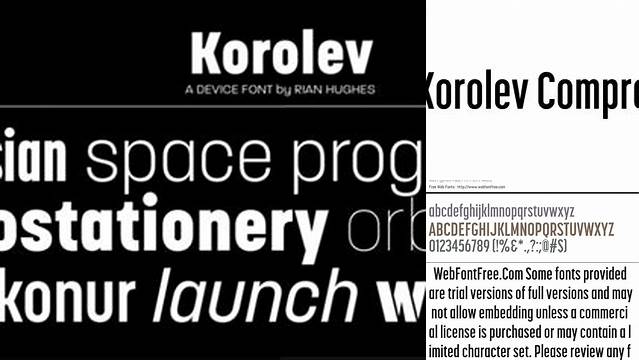
Hey guys! Ever stumbled upon a font that just screams attention? Well, let me introduce you to the Korolev Font, a real powerhouse when it comes to making a statement. This article is all about the Korolev Font, specifically the compressed and bold variations, and the best part? You can get it for free! So, buckle up, because we're diving deep into what makes this font so awesome, how to snag a free download, and how you can use it to spice up your projects. Whether you're a designer, a blogger, or just someone who loves a good-looking font, this is the place to be. We'll explore its features, talk about its versatility, and give you some pro tips on how to make the most of it. Let's get started!
1. What Makes the Korolev Font So Special?
Alright, let's get down to the nitty-gritty. What exactly makes the Korolev Font stand out from the crowd? Well, it's a combination of things. First off, it's got a fantastic, modern vibe. It's clean, geometric, and packs a serious punch. The compressed style, in particular, is designed to grab your eye without being overly complicated. It’s perfect for headlines, titles, and anywhere you want to make a bold statement. The bold weight of the font further amplifies this effect, making sure your text is seen and remembered. It's not just about aesthetics, though. The Korolev Font is also designed for readability. Despite its compressed nature, each character is carefully crafted to be clear and distinct. This means it works well even at smaller sizes, a crucial factor in design. It’s a font that balances style and function, which is a rare feat. Another key characteristic is its versatility. You can use it across a wide range of projects, from website headers and posters to logos and social media graphics. The Korolev Font truly adapts to whatever you throw at it. It’s like a chameleon in the font world, effortlessly changing to fit the needs of your project. And let’s not forget the emotional impact. The Korolev Font, particularly the bold version, exudes confidence and strength. It's the kind of font that makes you feel like you're in control, making it perfect for brands that want to convey a sense of authority or professionalism. Plus, the fact that you can get it for free makes it an even sweeter deal! So, yeah, the Korolev Font is pretty special, alright. It’s a combination of great design, functionality, and accessibility, making it a must-have for any creative toolbox. And honestly, who doesn’t love a font that makes your work look effortlessly cool?
2. Diving Deep into the Compressed Style of Korolev
Now, let's zoom in on the compressed style of the Korolev Font. This is where the magic really happens, guys. The compressed version is all about maximizing impact in a limited space. Think of it like this: You want to shout your message from the rooftops, but you don't have all the space in the world. The compressed Korolev Font is the megaphone that gets your message across loud and clear, without taking up too much real estate. This style is characterized by its tight letter spacing and condensed forms. Each character is squeezed together, creating a visual density that immediately draws the eye. It's a fantastic choice for headlines, subheadings, and any text element where you want to make a statement without being overly long or verbose. What's even more impressive is how well it maintains readability, even with the letters so close together. The designers of the Korolev Font put a lot of thought into ensuring that each character remains distinct, so your audience can easily understand your message, despite the condensed format. The compressed style also brings a touch of modernity and sophistication. It gives your design a sleek, contemporary look that is perfect for projects that want to project a stylish, up-to-date image. It's a great choice for brands that aim to be seen as cutting-edge or forward-thinking. It's an excellent solution for anyone who needs to fit a lot of information in a small space without compromising the look and feel of their design. This can be super useful for things like website navigation, posters, or even product packaging where space is always at a premium. The compressed style of Korolev Font isn’t just about aesthetics; it's about efficiency and impact, giving you a powerful tool to make your designs pop.
2.1. The Aesthetics of Compressed Typography
When we talk about the aesthetics of compressed typography, we’re really diving into the visual appeal of tightly spaced letters and the impact it has on the overall design. Compressed typography is not just about squeezing letters together; it's an art form. It's about how the reduced space between characters creates a sense of dynamism, tension, and visual interest. The Korolev Font masters this perfectly, as the compressed style of the Korolev Font has its own unique aesthetic qualities. It gives your design a powerful, assertive look that can immediately capture attention. The compressed form of letters often creates a stronger visual rhythm. This rhythm guides the eye across the text, making the content engaging and memorable. It creates a sense of flow that can make your design feel more alive and dynamic. Think of a tight, compressed font as an amplifier for your message. The characters are closer together, forcing the viewer to focus and engage more intently with the words. This can be very useful when you want to make a strong impact or convey a sense of urgency. Compressed typography can also create a sense of sophistication and modernity. It’s a style often associated with contemporary design, which is what the Korolev Font does best. The condensed letterforms have a clean, streamlined feel that makes your design look fresh and up-to-date. In essence, the compressed aesthetic is about creating a sense of visual density and impact, offering designers a powerful tool to make their work more expressive and engaging. The Korolev Font uses all of these aesthetics to create something truly impactful, grabbing your attention and keeping it.
2.2. Best Uses for Compressed Font Styles
Alright, let’s talk about where compressed font styles, like the Korolev Font, really shine, because it isn’t just about looking cool; it's about being effective. The best uses for a compressed font style really depend on the project's goals. Firstly, they’re perfect for headlines. A compressed font makes a big statement and grabs immediate attention, which is exactly what a headline needs to do. The Korolev Font, with its bold and compressed nature, is a great choice for this. Then, they’re ideal for subheadings and titles. They provide a clear visual hierarchy, separating different sections of text. It's fantastic for breaking up long content, making it easier to digest. They also work really well for short phrases and taglines. Because they're condensed, they can pack a lot of impact into a small space. Think about a tagline for a logo or a catchy phrase on a poster, the Korolev Font can deliver a strong message. Compressed fonts are also excellent for display purposes, like posters, banners, and social media graphics. The condensed characters ensure that the text is easily readable from a distance and is instantly recognizable. In situations where space is limited, compressed fonts, like the Korolev Font, are a lifesaver. Website navigation menus, product labels, and even small print in advertisements can benefit from a compressed font. Lastly, they are a great option for branding. Brands that want to project a modern and streamlined image often turn to compressed fonts to create a strong visual identity. In short, compressed font styles are versatile tools that excel in contexts where space is limited, impact is essential, and a modern aesthetic is desired.
2.3. Readability and Legibility in Compressed Fonts
Here’s the deal, guys: readability and legibility are super important, even with cool fonts like the Korolev Font. Even though compressed fonts look great, if people can't easily read them, they're useless. So, what makes a compressed font readable? The designers of the Korolev Font have considered this very carefully. First, character design is key. The individual letters need to be distinct and easily recognizable, even when squeezed together. That means a good compressed font must have well-defined letterforms with unique shapes. Then, sufficient counter space is really important. Even with compression, there must be enough open space within the letters themselves. This helps your eyes differentiate between characters. Then there’s the weight of the font. A bold weight, which the Korolev Font offers, can actually improve readability in a compressed style because it makes the characters more prominent. Font size also plays a big role. It’s best to use compressed fonts at larger sizes, especially if the font is displayed on a screen. With larger text, the characters have more room to breathe. Spacing between the letters and words is very important, as a slight adjustment can make a world of difference. The right amount of space keeps the text from looking cramped and difficult to read. In short, a readable compressed font, like Korolev Font, blends aesthetics with functionality. It’s designed to be visually appealing without compromising the ability of readers to understand the text. It's a fine balance, but when done right, a compressed font can be a powerful tool.
3. The Boldness of Korolev: Making a Visual Statement
Let’s dive into the bold side of the Korolev Font. If the compressed style is the megaphone, then the bold weight is the volume knob turned all the way up. The bold style is perfect for grabbing attention and making a strong visual statement. It’s all about creating impact, and there's no question that it's going to make a statement. The boldness in the Korolev Font is achieved through the thickness of the strokes that make up each letter. This thickness gives the font a heavier, more substantial feel. This makes it ideal for titles, headlines, and any other text elements that need to stand out. Its boldness also translates to authority and confidence. When used in branding, the bold Korolev Font can convey a sense of strength and reliability. It’s like the font equivalent of a power suit! Another great thing about the bold style is its visual clarity. Even at a distance or in smaller sizes, the bold characters are easy to read. This is crucial for things like signage, posters, and any design where the text needs to be quickly understood. It’s great when you want to ensure your message is clear. It's also incredibly versatile. While it's great for headlines, it can be used for various purposes. From website headers and social media graphics to printed materials, the bold Korolev Font can adapt to any project that requires a high degree of visual impact. Plus, the combination of bold and compressed is a double whammy of attention-grabbing power. This combination creates a visually striking contrast and is super effective at making sure your message pops. So, when you choose the bold style, you're not just selecting a font; you're making a bold statement with your design. And hey, sometimes that’s exactly what you need!
3.1. Bold Typography: What Makes It Powerful?
So, what's the deal with bold typography? Why is it so powerful? It's all about visual weight, guys. Bold fonts like the Korolev Font are instantly more noticeable than lighter fonts. They draw the eye and command attention. The increased thickness of the strokes gives them a heavy, substantial presence on the page or screen. This is one of the main things that makes them so powerful. Bold fonts also convey strength and confidence. They project a sense of authority and reliability, which makes them ideal for brands and businesses that want to portray a strong, trustworthy image. Bold typography is designed to emphasize important information. You can use it to highlight key messages, call to actions, or any text that you want to stand out. Then there’s also the visual impact. The bold style can create a strong visual contrast, especially when combined with lighter fonts or background elements. This contrast makes your design more dynamic and visually appealing. Bold typography is also highly versatile. It works well in a variety of contexts, from website headlines and posters to logos and social media graphics. Then you’ve got readability. In many cases, bold fonts are easier to read, especially at smaller sizes or from a distance. The increased stroke weight can help characters stand out and improve clarity. Bold fonts are particularly effective when combined with other design elements. Pairing a bold font with a clean, uncluttered layout can create a powerful and memorable design. In a nutshell, bold typography is powerful because it's visually impactful, emphasizes important information, and conveys a sense of strength and confidence. It’s a great way to make sure your message hits home!
3.2. Where to Use Bold Fonts for Maximum Impact
Okay, let’s talk about where to use bold fonts like the Korolev Font for maximum impact. Think strategically, guys! If you want your message to stand out, then you need to pick the right place to put it. Bold fonts are your go-to choice for headlines. They're excellent for grabbing attention and making a strong first impression. In website design, bold fonts are also amazing for hero sections and call-to-action buttons. They make it impossible for your visitors to miss important messages. Then they're also fantastic for branding and logo design. They can help establish a strong and memorable visual identity. Use bold fonts in posters and advertisements, where you need to communicate a message quickly. In social media graphics, where you need to capture attention on a crowded feed, is also where bold fonts shine. Signage and wayfinding use bold fonts. They ensure that your text is easily readable from a distance. Consider product packaging and labels. The bold text helps highlight key features and information. Also, think about any place you want to emphasize a particular piece of information. Bold fonts are a great way to draw attention to details that matter most. The key is to use them deliberately and strategically. The Korolev Font makes it easy to make a statement, but make sure it’s in the right place!